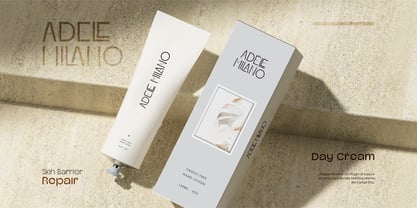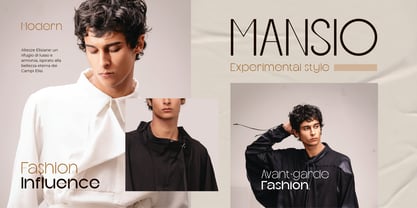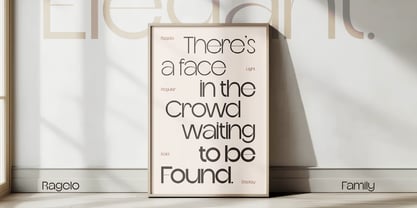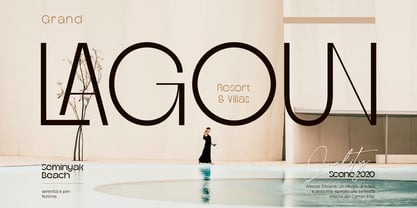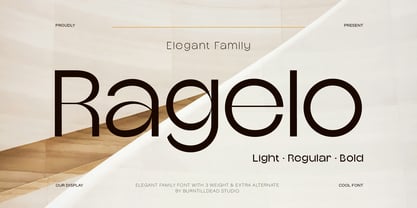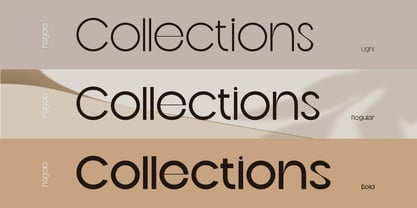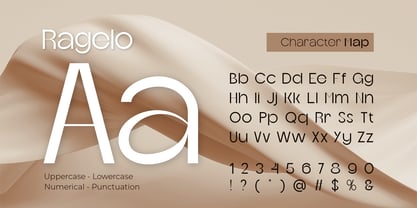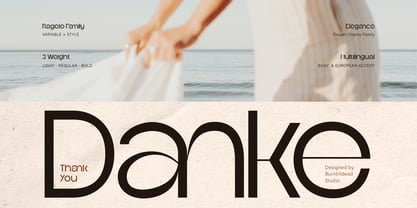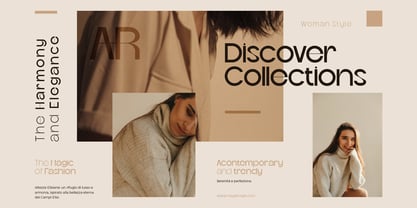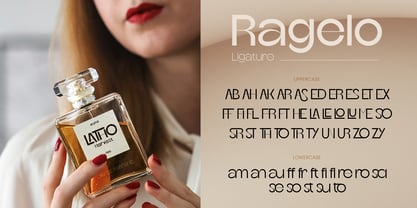
Ragelo
by Burntilldead
The Ragelo Font Family was designed by Eric Kurniawan and published by Burntilldead. Ragelo contains 3 styles and family package options. More about this family
Meet Ragelo, a sleek and stylish display font that combines modern elegance with a minimalist touch. If you love clean lines and contemporary vibes, this font is made for you!
Ragelo is an elegant font family with 3 weight options: Light, Regular, and Bold. It also comes with alternates and ligatures, so you can customize it however you like and add extra aesthetic value to your design.
Perfect for logos, magazines, product design, social media, business branding, editorials, fashion, packaging, and luxury brands.
Features:
• A - Z set (uppercase & Lowercase)
• Number
• Punctuation
• Alternate
• Ligature
• Multilingual
Designers: Eric Kurniawan
Foundry: Burntilldead